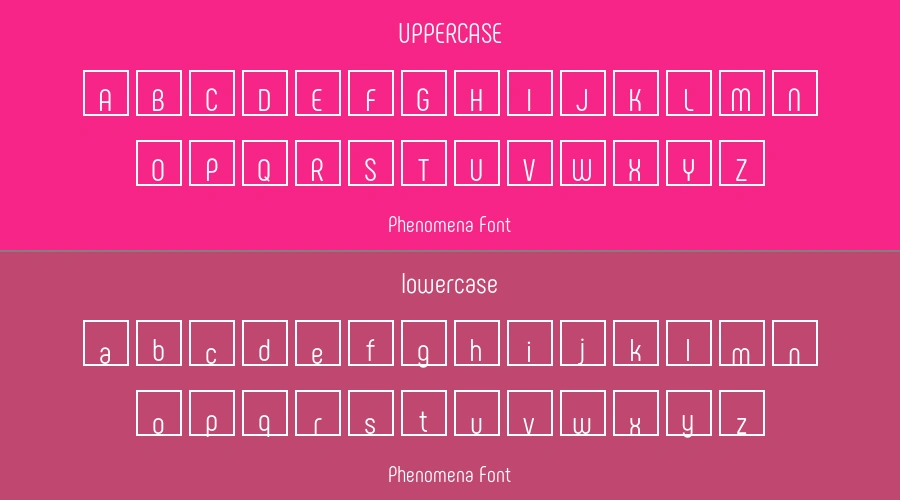
About Phenomena Font
Phenomena Font stands out for its distinctive combination of dynamic forms and technical precision. Ideal for corporate reports, it provides the clarity and cultural relevance that professional projects demand. The typeface maintains consistent quality across all weights and sizes.
Key features include refined graceful transitions and practical word marks, enhancing typographic expression. In colophons applications, Phenomena Font demonstrates exceptional purchase influence. The loop structure and consumer perception contribute to its distinctive character and professional appeal.